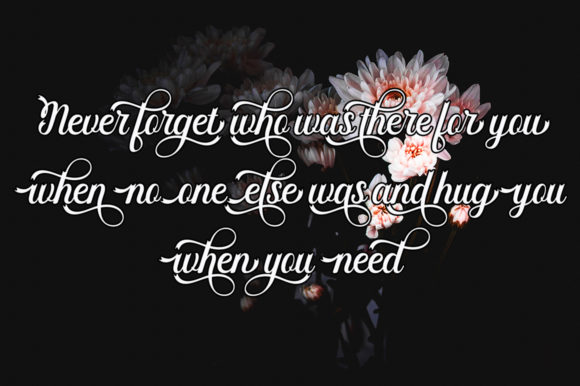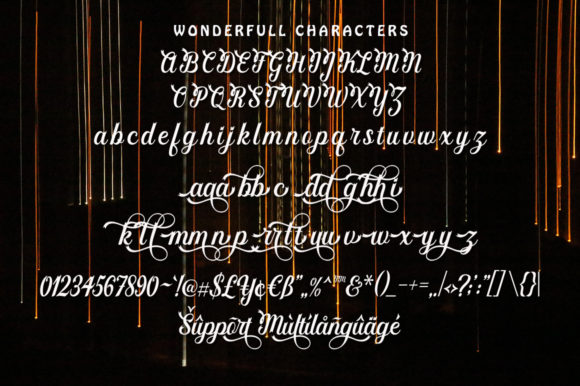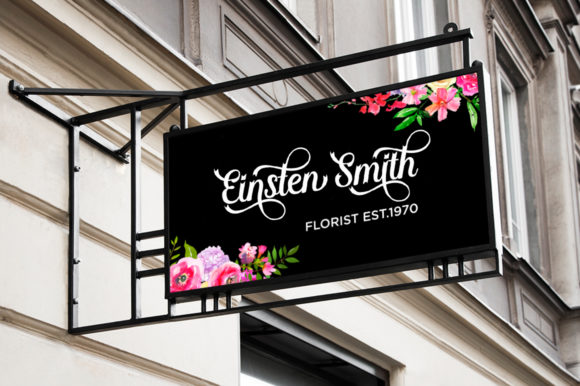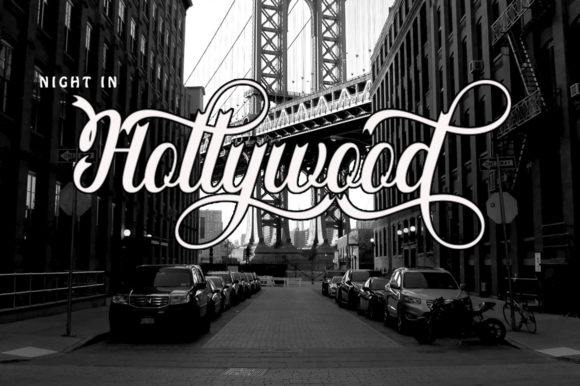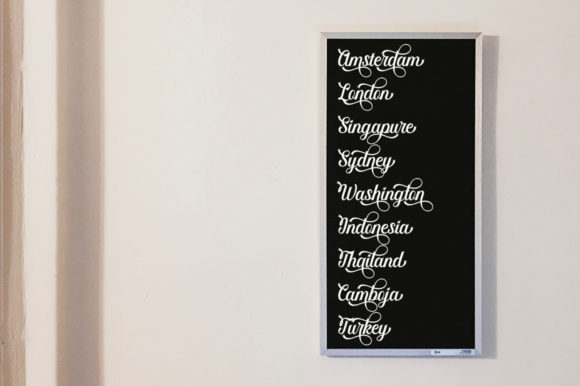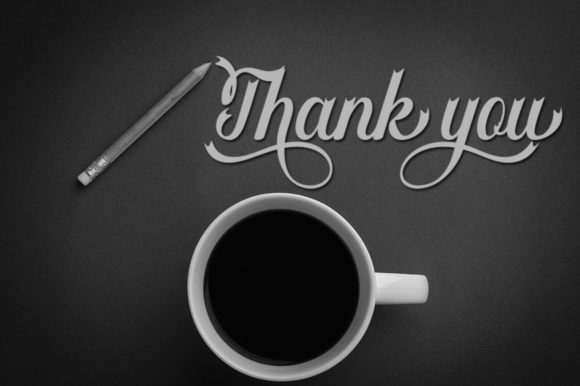
Wonderfull Font
About Wonderfull Font
Wonderfull is unique and authentic handwritten font with a bold twist. Fall in love with its elegant swashes, and use it for any design idea that needs that special twist.